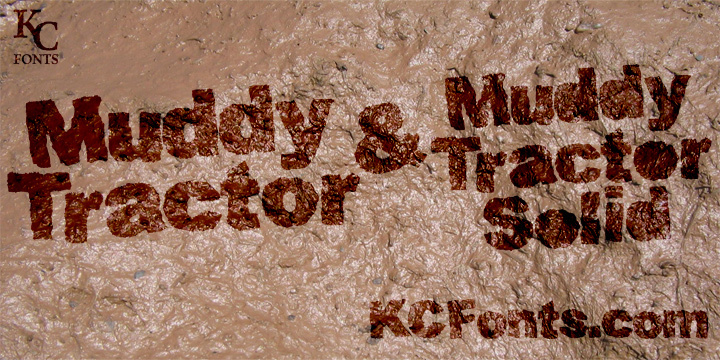
Muddy Tractor, designed by Kevin Christopher of KC Fonts, is a free eroded display font with broad, heavy lettering. Its uneven edges look torn and caked with dried dirt, but the main shapes stay blunt and recognizable. The texture is rough throughout.
Outdoor brands, farm shops, and workwear labels could use its battered surface to suggest hard use and rural machinery. It also suits tractor-pull posters and country music merchandise, where the irregular silhouette can become part of a dusty, hard-worn graphic theme.
Use Bold to activate the solid letters.